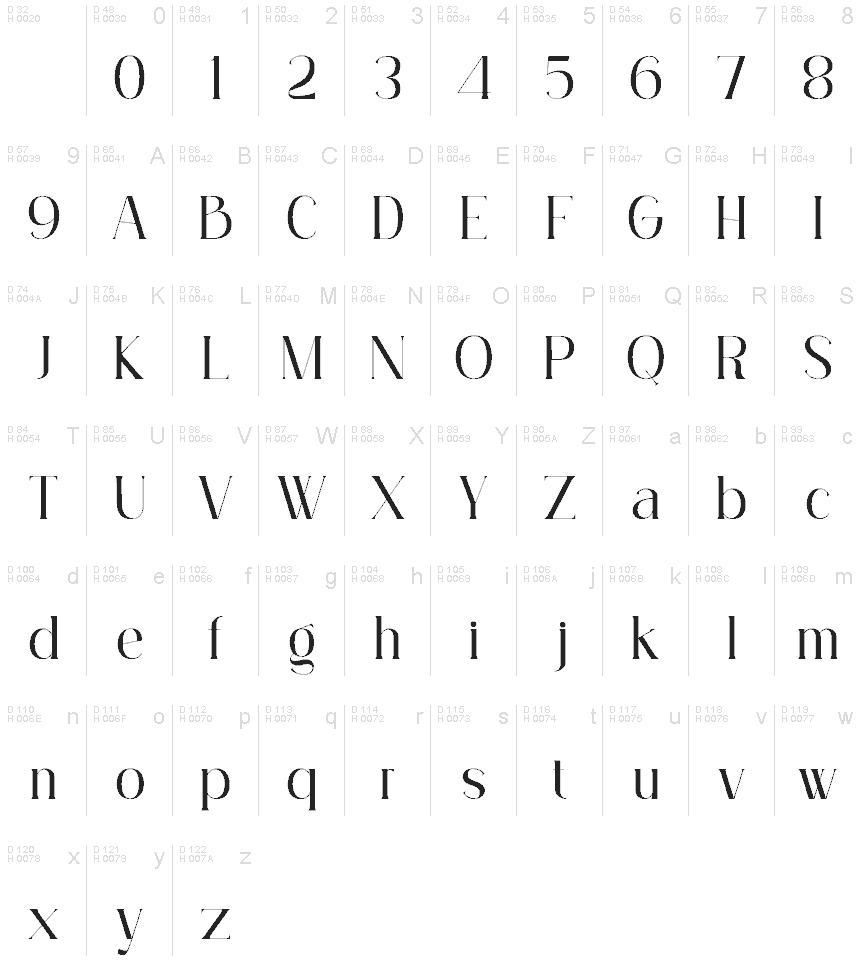
Magioline Regular
Magioline font by Muksal Creative is a sophisticated and elegant modern serif with refined details and high-end appeal. The font set’s strong presence is further enforced by the solid black color which makes it eye-catching. Whether straight or curving, each letter is designed smoothly with no obvious deviations within the strokes.
This free serif font has various possible applications in print and digital projects at any scale. Apply it to logo titles outdoors, on book covers, or for social media posts for visiblity. Websites such as blogs, business sites, magazines sites are also suitable!